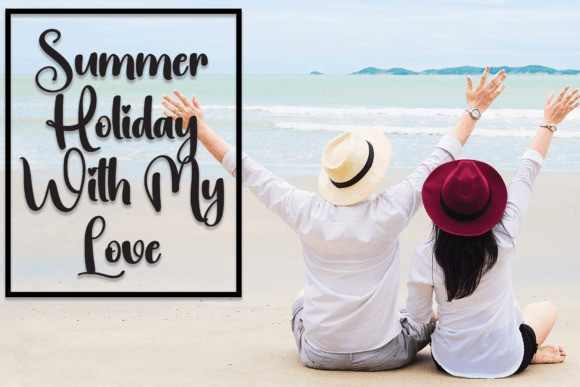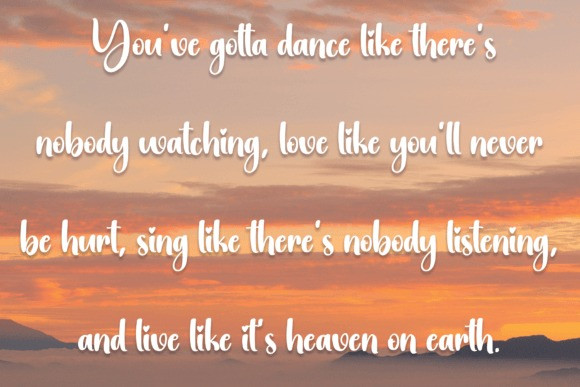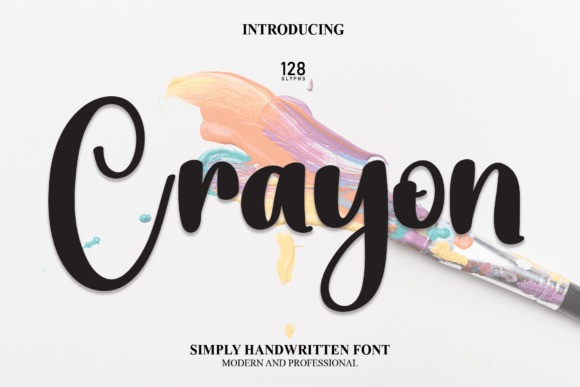
Crayon Script Font
Crayon Script Font, perfect for wall displays, wedding invitations, social media post logos, advertisements, product packaging, product designs, labels, photography, watermarks, invitations, stationery, and any project that requires a handwritten taste.